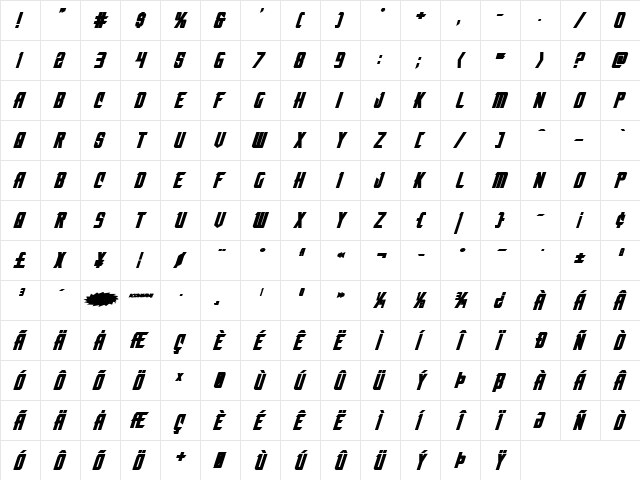
Nemesis Enforcer Bold Expanded Italic Bold Italic Font Preview
Design Context for Nemesis Enforcer Bold Expanded Italic Typeface
Nemesis Enforcer Bold Expanded Italic brings high-energy athletic personality to the page — its confident, muscular forms are built for impact. The dynamic lean of this cut emphasises speed and emphasis in any layout. The heavy weight commands attention and anchors typographic hierarchies.
Built for sports team identities, athletic apparel, event posters, and high-energy promotional material.
Font Pairing: Use alongside a condensed or geometric sans for supporting copy — keep the pairing bold, functional, and free of ornament.
Pro Tip: Nemesis Enforcer Bold Expanded Italic thrives on contrast — try it large, bold, and tight against a clean background for maximum visual impact.